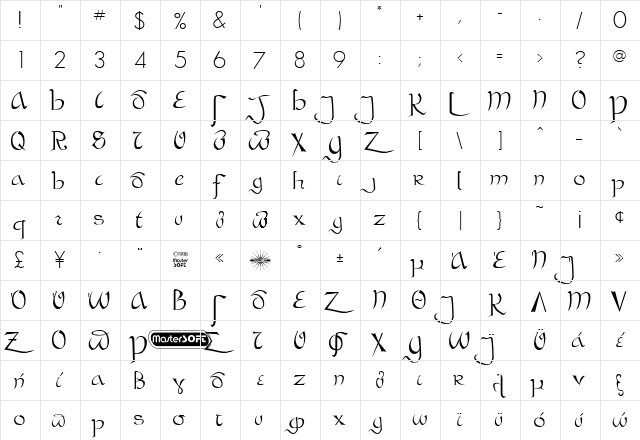
MSBastarda Regular
Design Context for MSBastarda Typeface
MSBastarda takes a measured approach to typography — its balanced proportions and neutral character make it a reliable workhorse for both digital and print work.